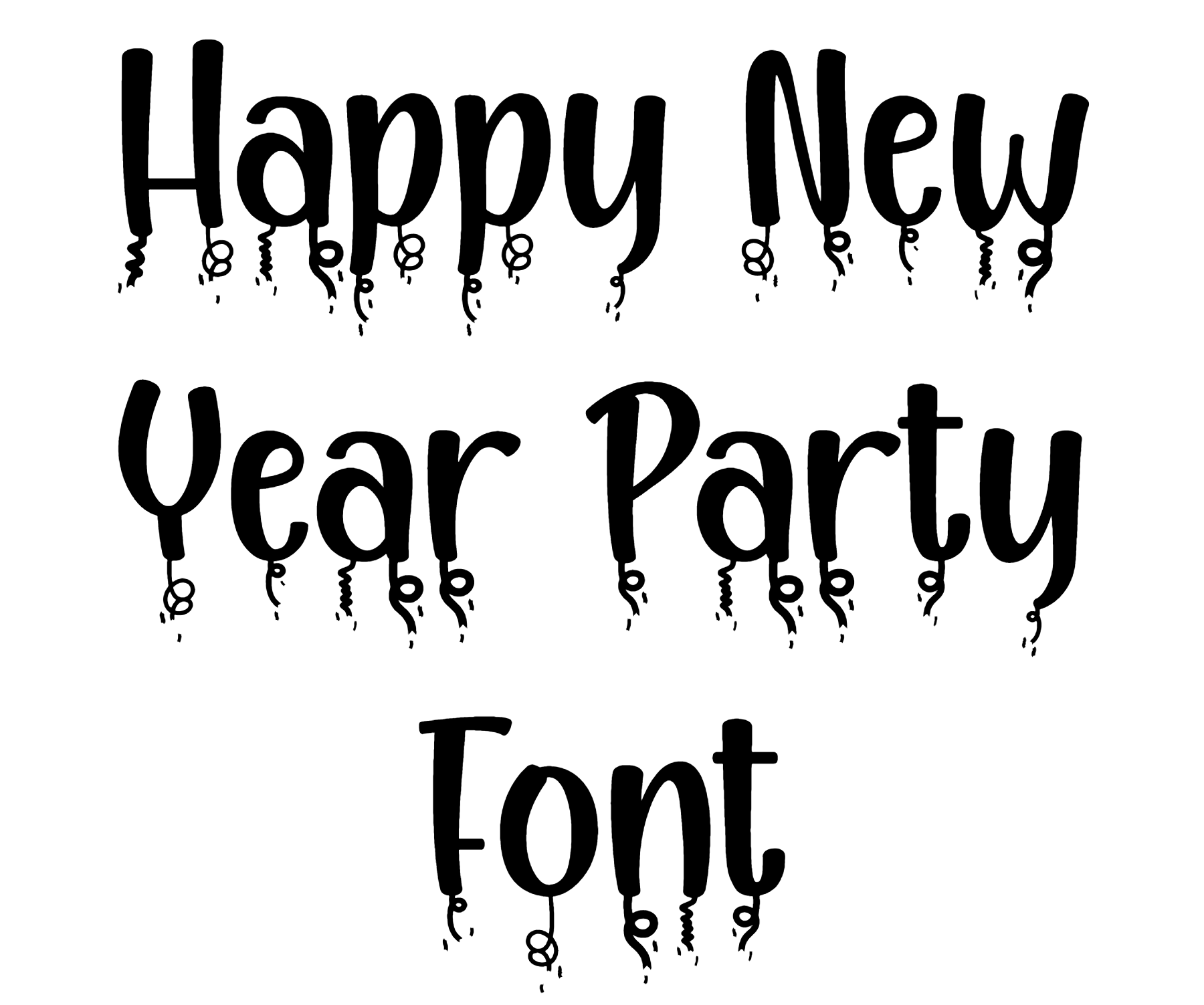
Happy New Year Party
Happy New Year Party is a fancy font created by Putra Novembria Candra Kusuma and released through Putracetol Studio, Karanganyar (2020). Bold and full of character, it's built to stand out rather than blend in. You can download it for free and test it with your own words in the preview above.
- Designer: Putra Novembria Candra Kusuma
- Publisher: Putracetol Studio, Karanganyar
- Glyphs: 195
With complete upper and lowercase letters and all ten digits, Happy New Year Party is ready for real wording, not just a single headline. Common punctuation such as &, !, ? and @ is included as well. It also has the accented letters you need for Spanish, French, German, Portuguese and Italian.
Happy New Year Party is a natural fit for posters, logos and eye-catching headlines. Use it for one standout word or headline and let simpler fonts handle the rest.
Yes. Happy New Year Party includes the accented letters needed for Spanish, French, German, Portuguese and Italian, so it works for more than just English.